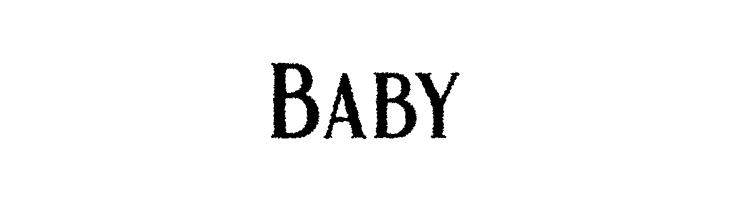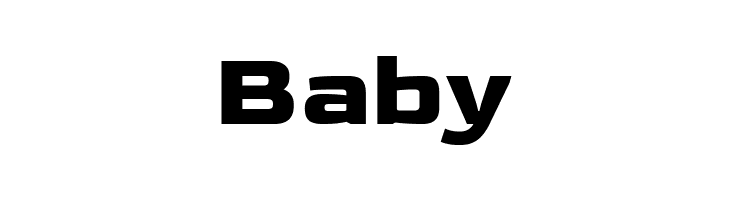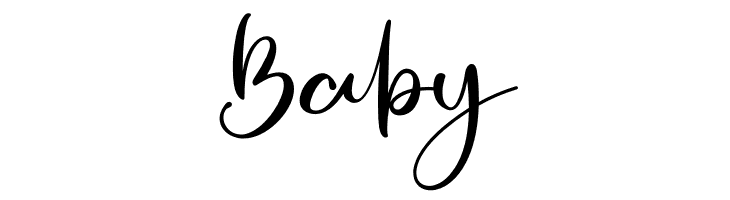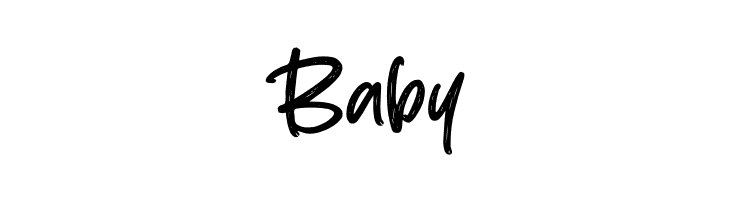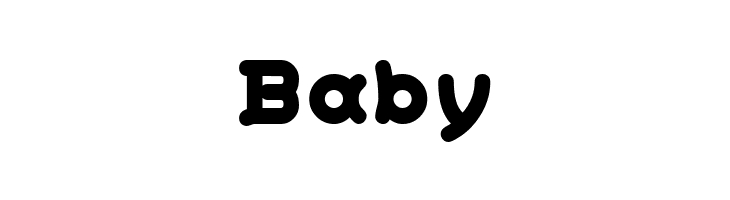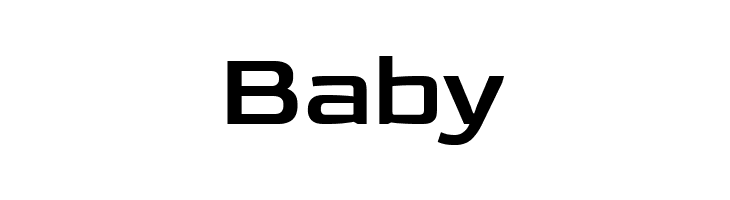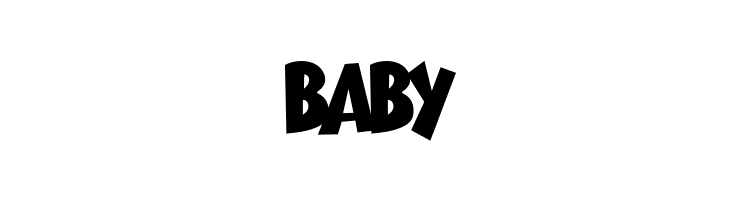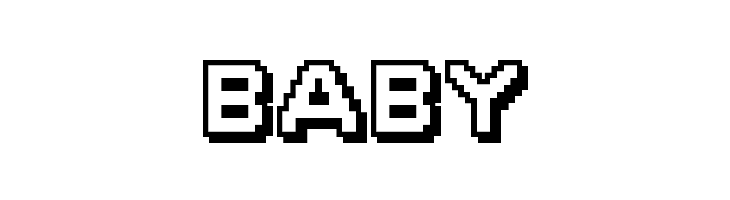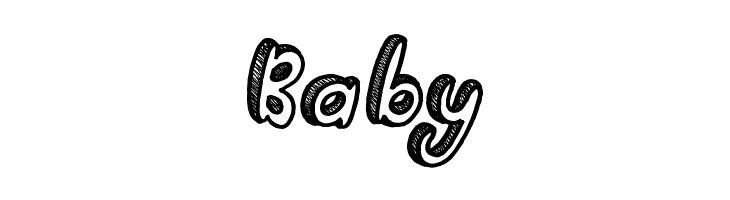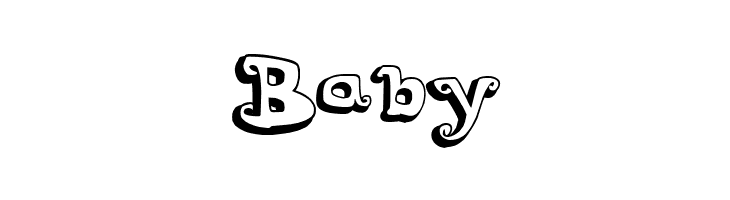
• GoGrunge_Demo
A bold, hand-drawn font with a grunge aesthetic and irregular edges.
• Gohan
A playful, bold font with rounded, thick letterforms and a friendly appearance.
• GOIABADA
A bold, playful font with a three-dimensional outline and whimsical serifs.
• GOING MERRY
A bold, playful font with a graffiti-inspired style.
• Going Rogue
A bold, hand-drawn font with a playful, sketch-like texture.
• GoingAround
A decorative and artistic font with swirling, hand-drawn letterforms.
• GoingFast
A bold, italicized font with a textured, sketch-like appearance, exuding energy and motion.
• Gojet
A modern font with clean lines and a touch of vintage elegance.
• Gol
Calligraphic numerals with elegant, flowing strokes.
• Golang
A bold, brush-style font with a hand-painted, dynamic appearance.
• Gold Bold
A bold, geometric sans-serif font with a modern and assertive style.
• Gold Brush
A bold, brush-style script font with dynamic, flowing strokes.
• Gold Button Demo
A bold, cursive script font with elegant, flowing strokes.
• Gold Coast Free Outline
An elegant outline font with a modern and sophisticated style.
• Gold Coast Free Rough
A rough, textured font with a handcrafted, vintage feel.
• Gold Girls
A bold, brush-style font with dynamic and expressive strokes.
• Gold Night
A bold, handwritten font with dynamic and expressive strokes.
• Gold Regular
A modern, geometric font with clean lines and minimal contrast.
• Gold Shine
A bold, expressive handwritten font with playful strokes.
• Gold Under The Mud Regular
A bold, brushstroke-style font with dynamic and artistic flair.
• Gold Under The Mud Regular